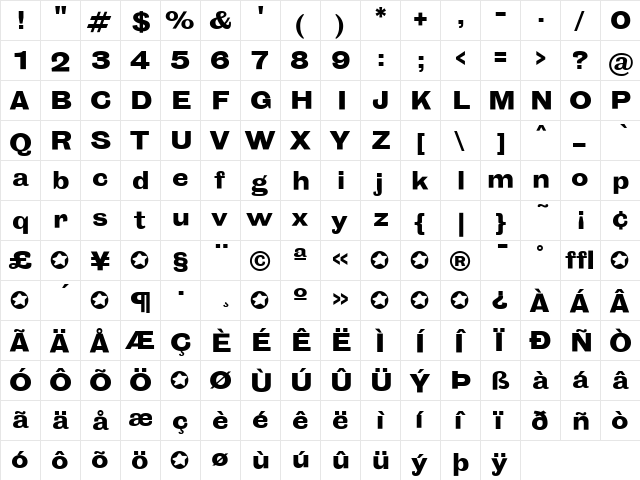
BureauGrotesque-SevenNine Regular
Design Context for BureauGrotesque-SevenNine Typeface
BureauGrotesque-SevenNine offers clean, dependable letterforms without strong stylistic allegiance, making it a practical choice for designers who need flexibility.
Originally released in 1989, this typeface is available in TrueType (TTF) format.